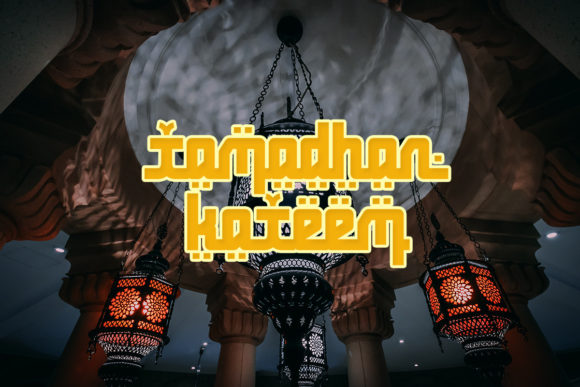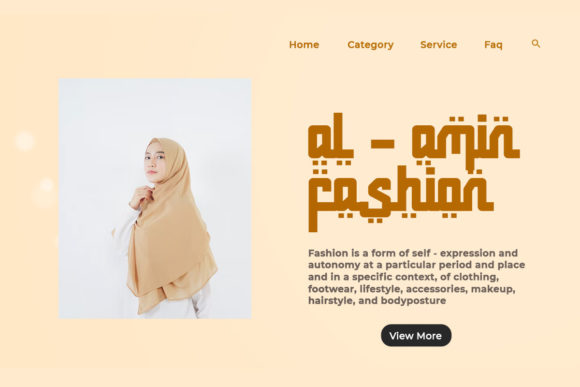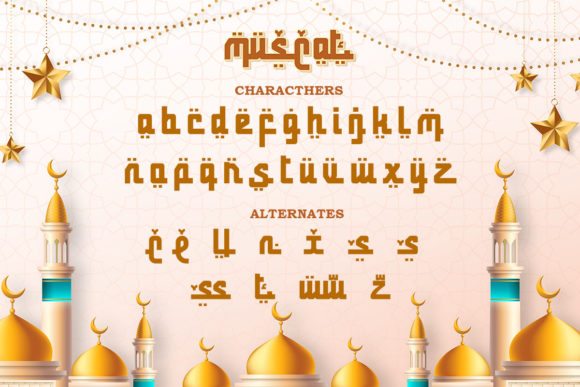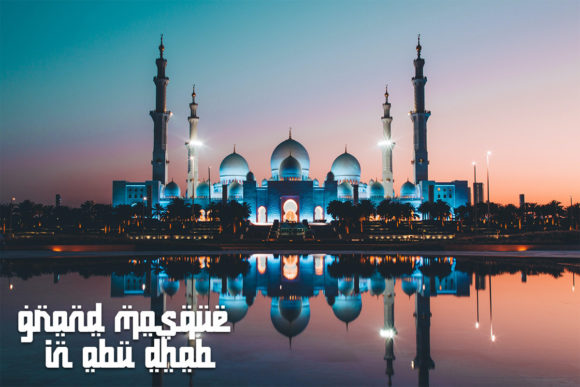
Introduction to Muscat Font
Muscat is an incredibly cool display font.
With a modern yet whimsical style, this font has the potential to bring each of your creative ideas to the highest level This font is PUA encoded which means you can access all of the amazing glyphs and ligatures with ease.
Key Features of Muscat Font
Why Choose Muscat Font?
Muscat Font offers exceptional quality and versatility, making it a valuable addition to your design toolkit. Whether you’re creating for personal projects or commercial use, Muscat Font delivers professional results.